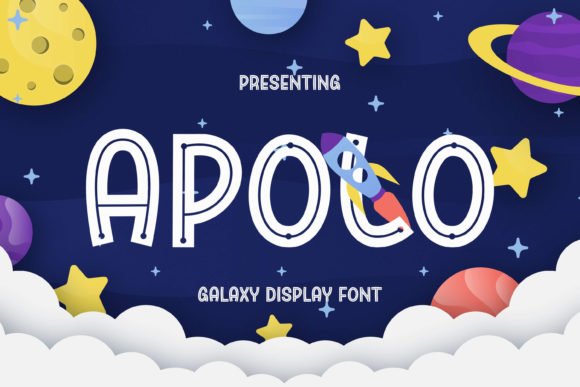
Introduction to Apolo Font
Apolo is a playful and creative display font, perfect for your unique design projects.
It looks great on book covers, games, science-related magazines, product packaging, and more .
Why Choose Apolo Font?
Apolo Font offers exceptional quality and versatility, making it a valuable addition to your design toolkit. Whether you’re creating for personal projects or commercial use, Apolo Font delivers professional results.